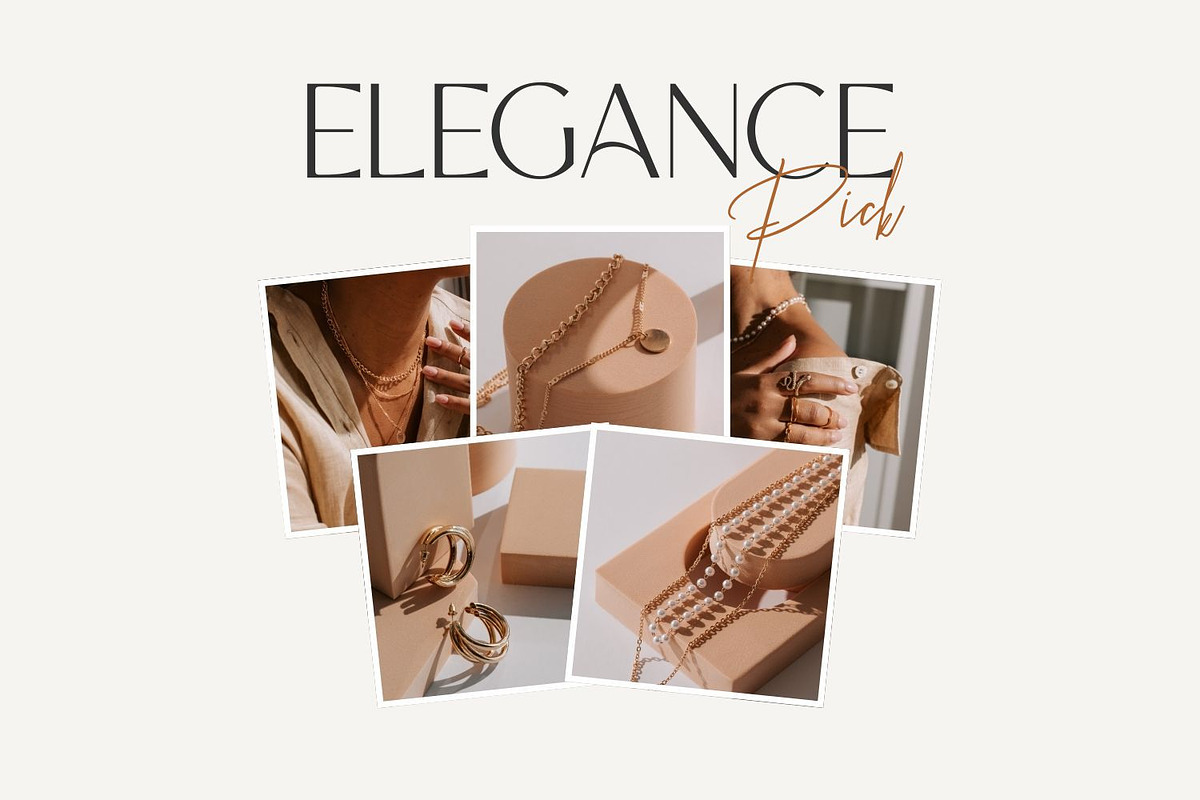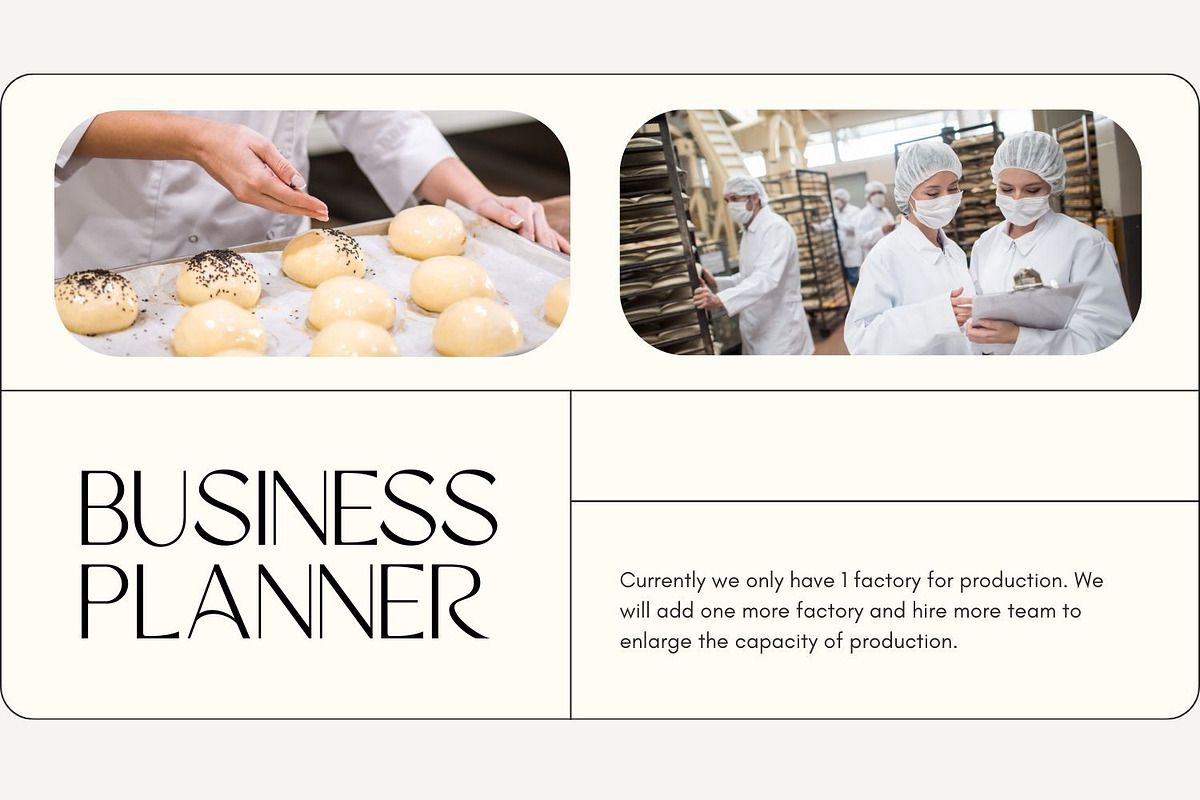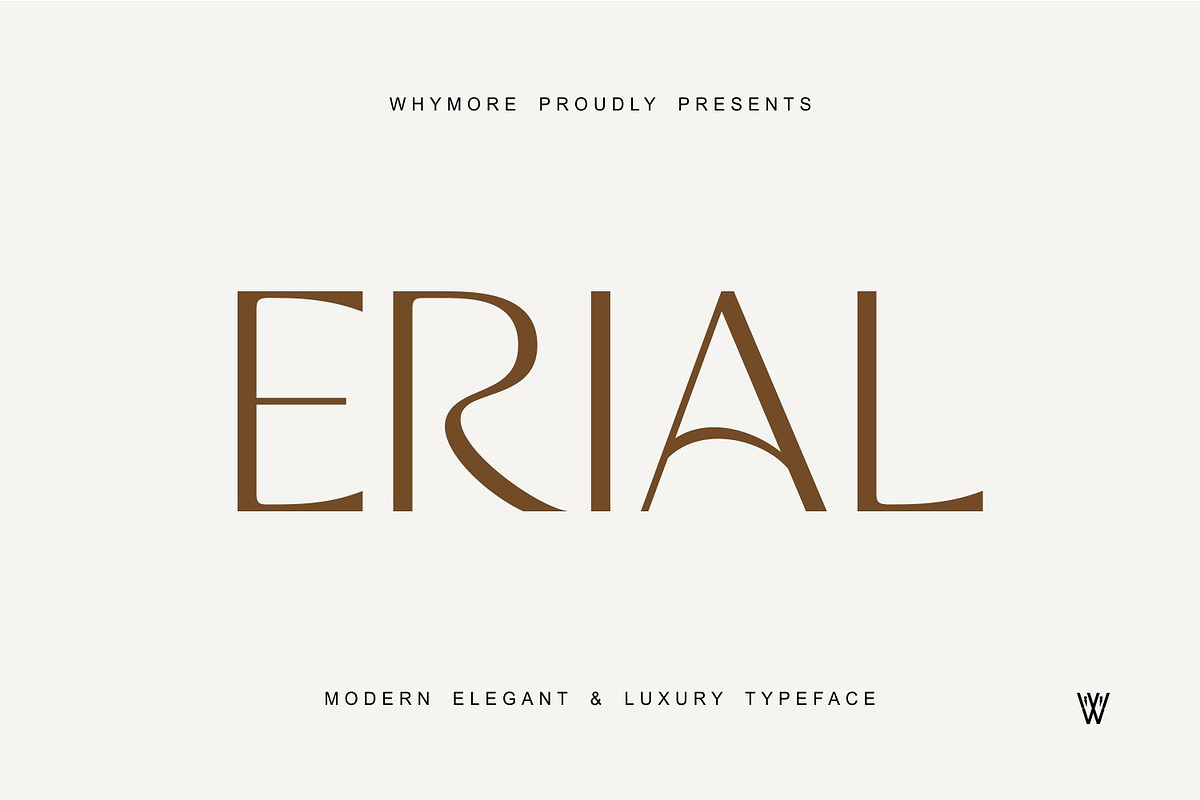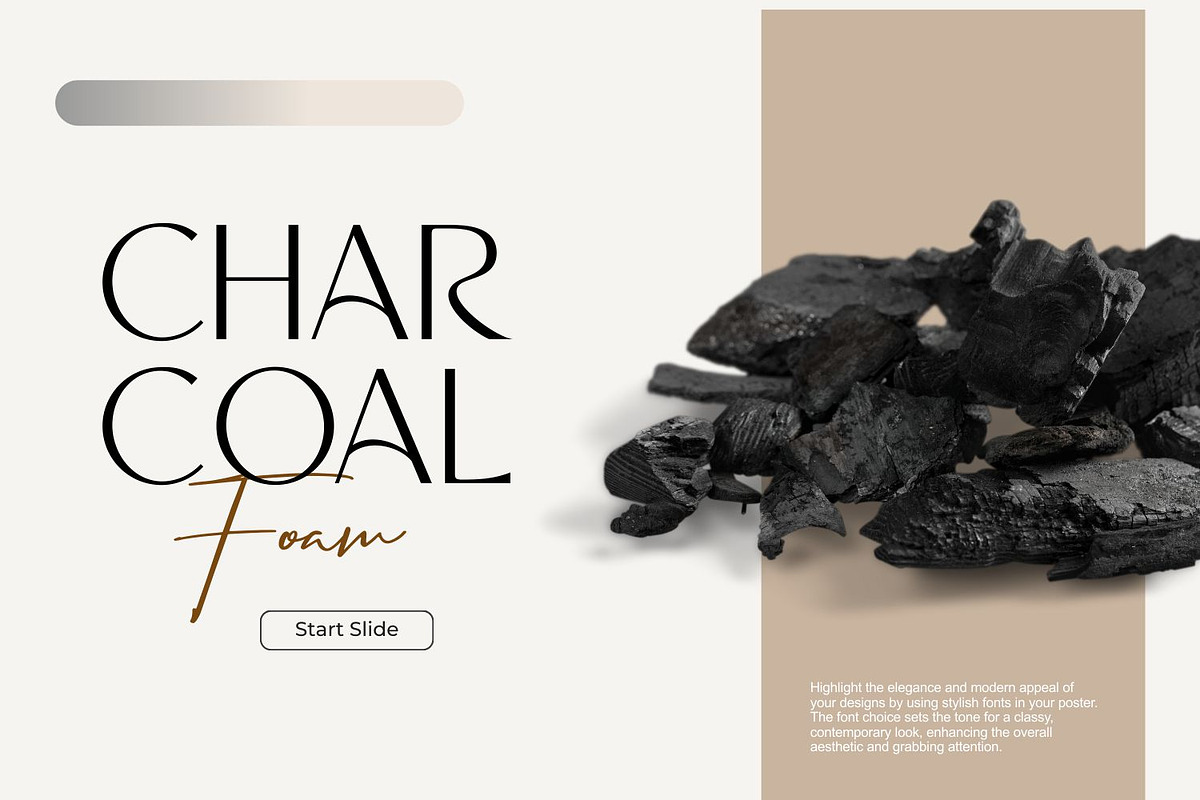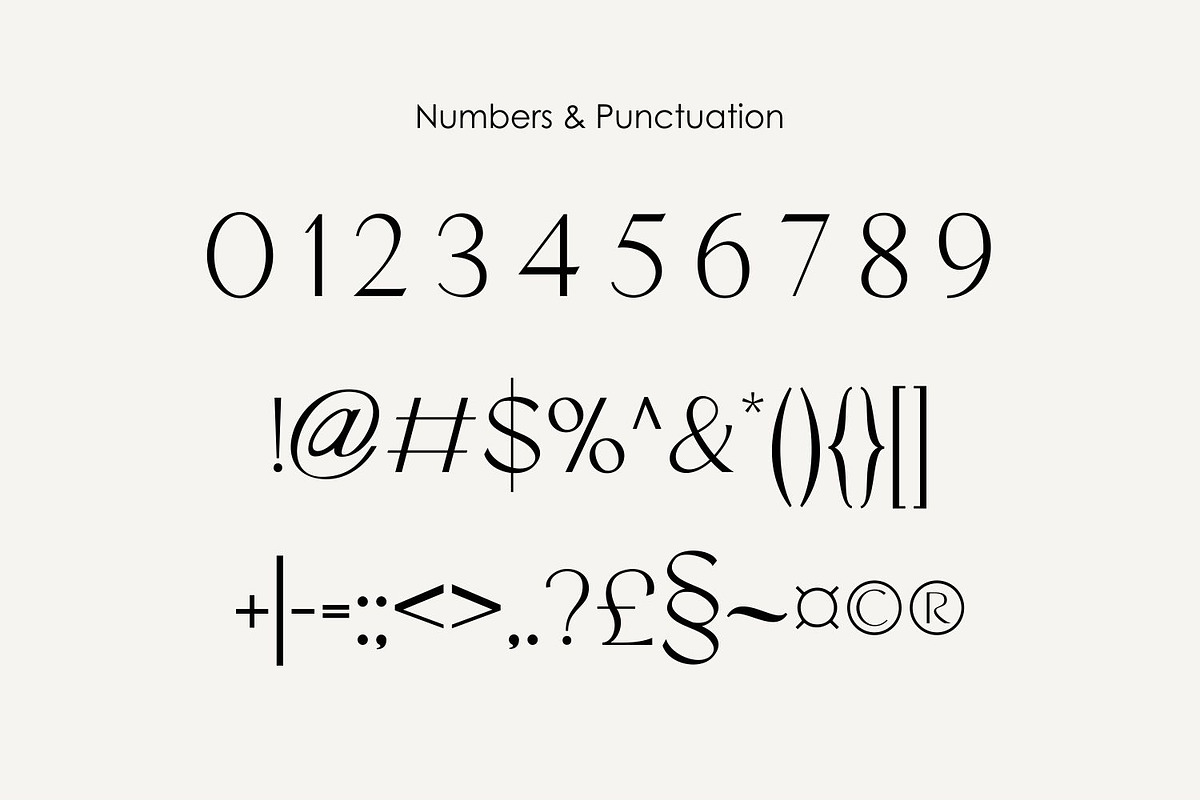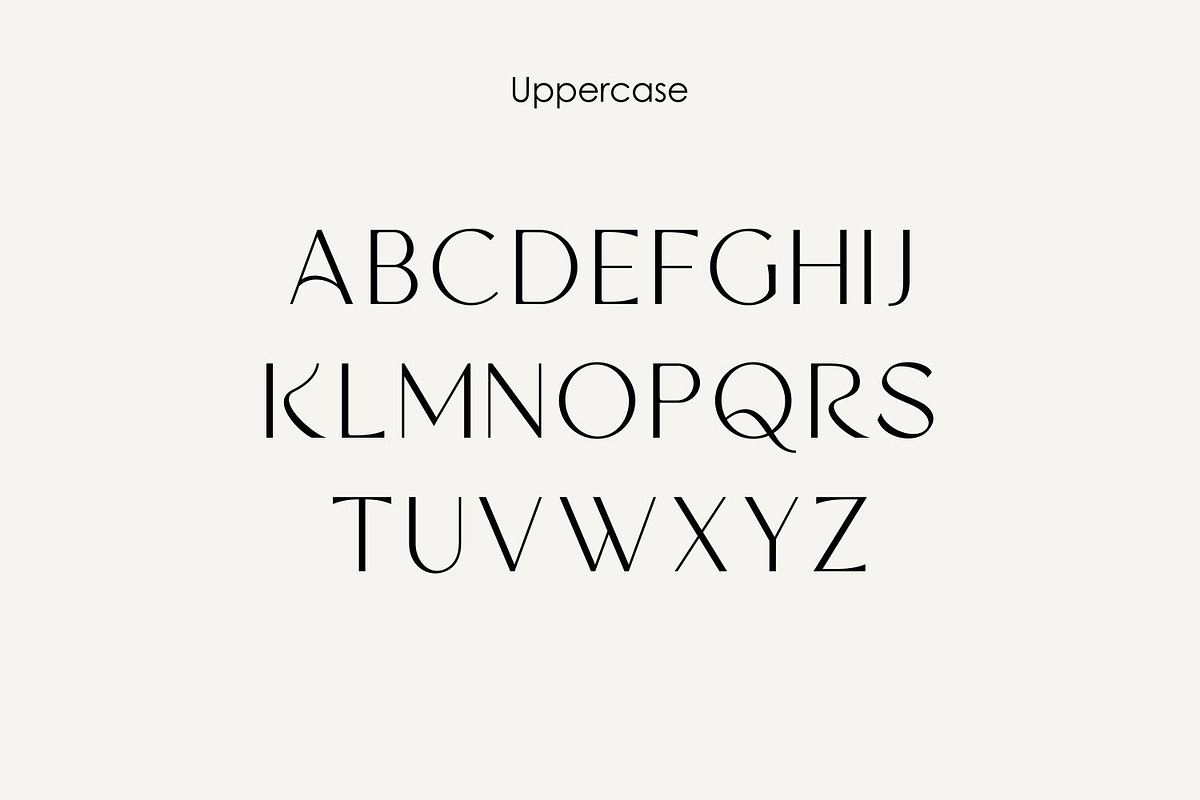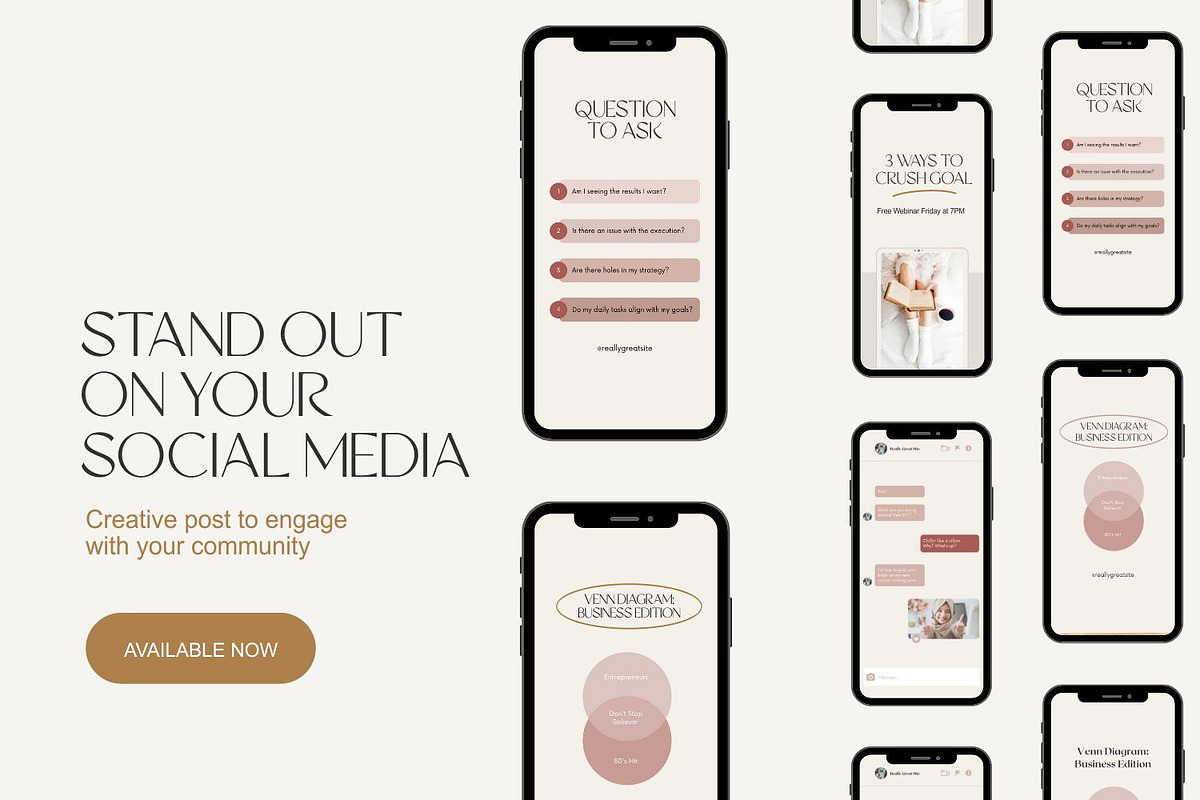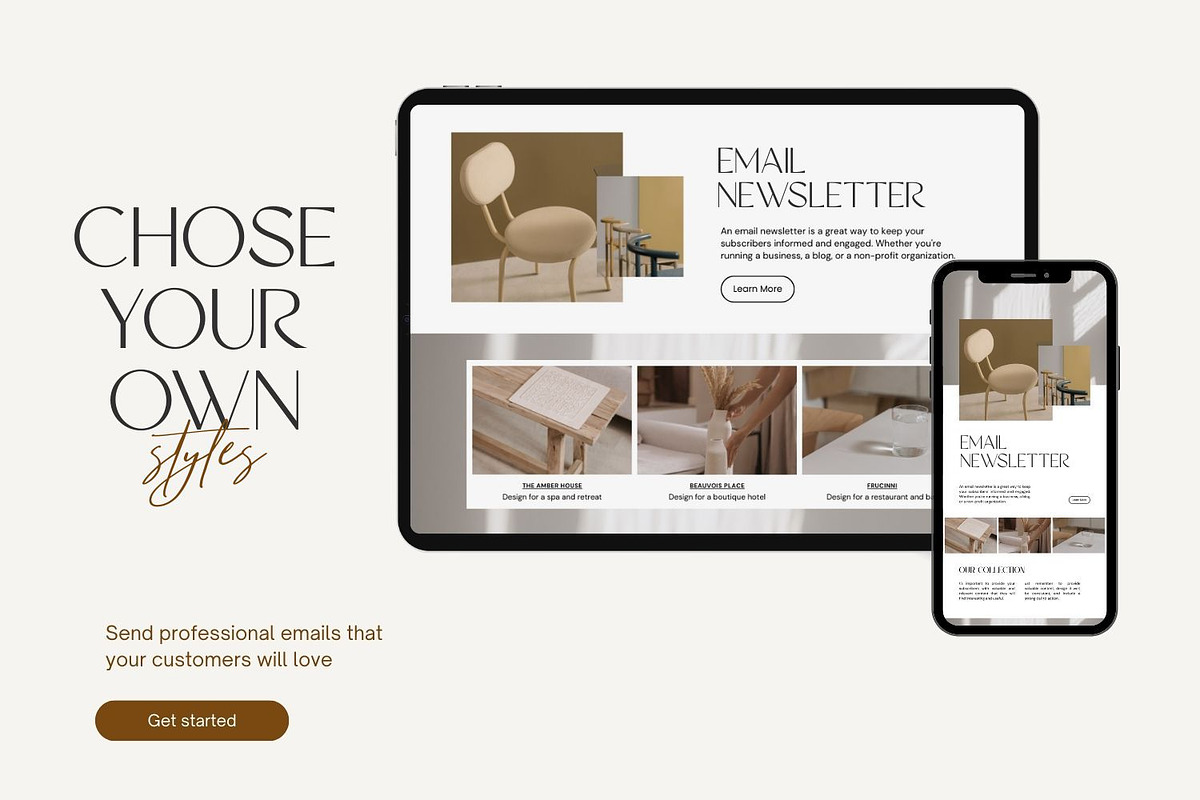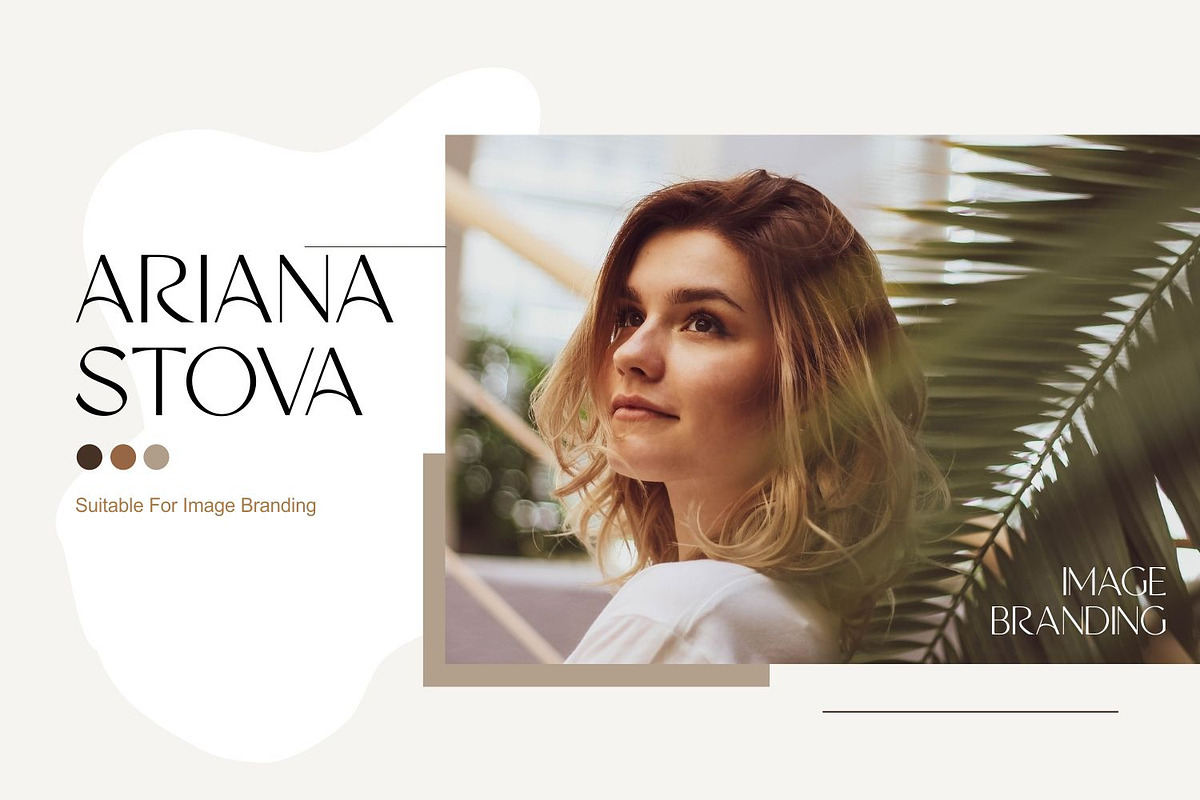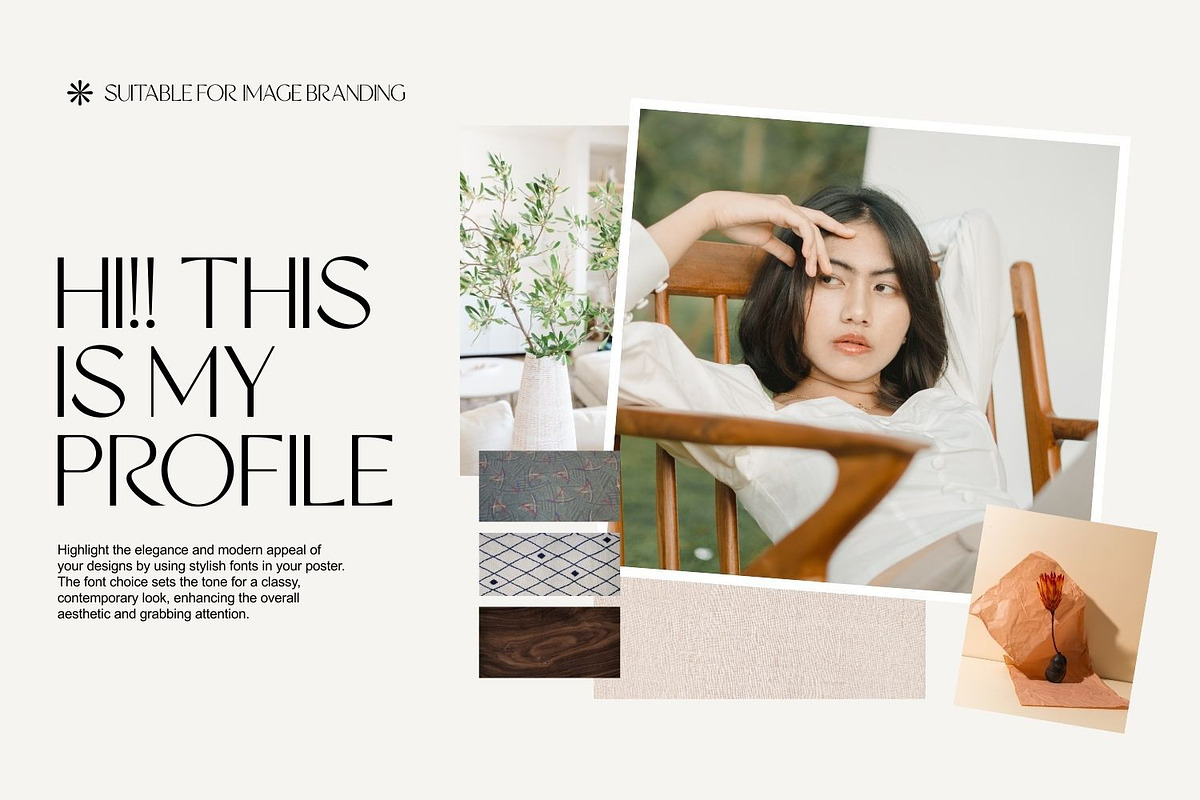
ERIAL | Simple Luxury Serif Font
Discover ERIAL, a sophisticated and modern serif font designed to bring a touch of luxury to every project. Perfect for invitations, branding, and crafting, ERIAL combines classic elegance with a contemporary edge, making it ideal for upscale wedding designs, event materials, Cricut projects, and more.
This versatile typeface is crafted for ease of use across platforms like Cricut, Procreate, and Canva, offering seamless integration into both digital and print designs. ERIAL’s clean lines and refined details make it suitable for a variety of creative needs, whether you’re designing for personal events, professional branding, or crafting projects. Its stylish character options also come with full commercial use, making it the perfect choice for crafters and designers looking to expand their offerings.
Features : ✅ Multilingual ✅ Uppercase alphabet A-Z ✅ Lowercase alphabet a-z ✅ Alternate Character ✅ Numbers 0-9 ✅ Some punctuation